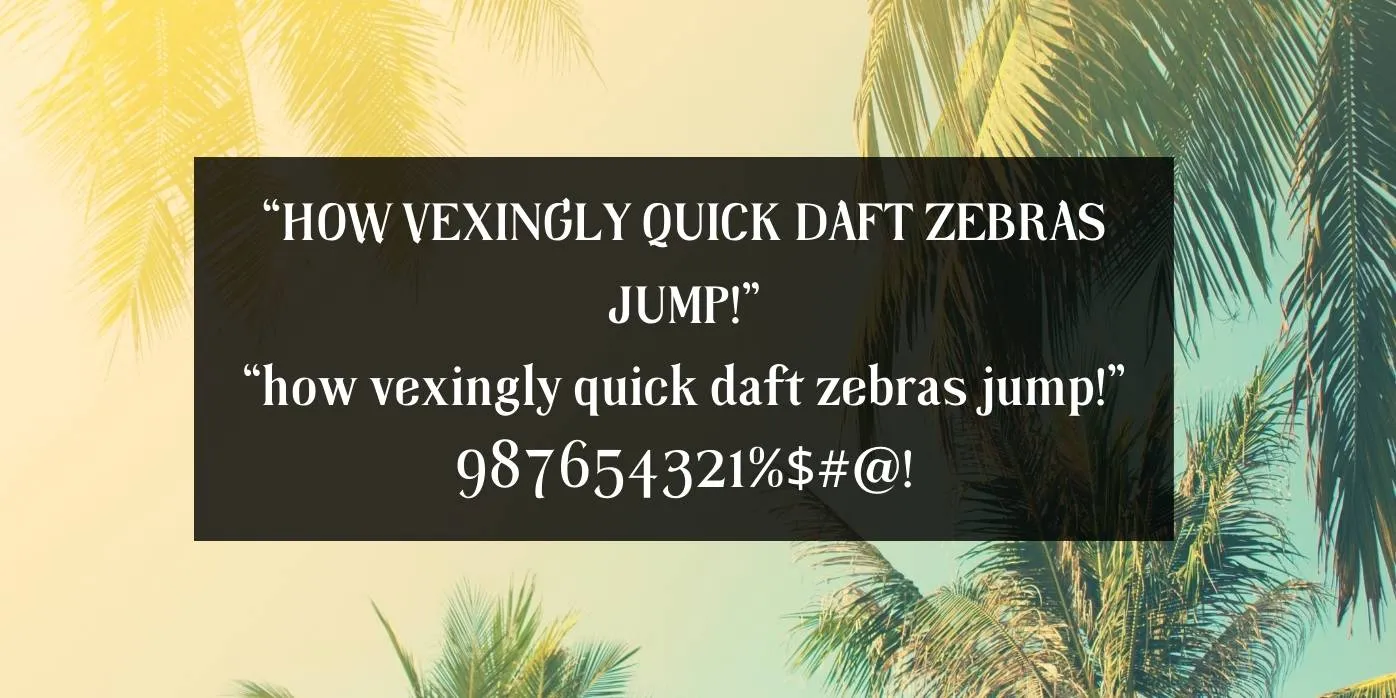
Tropikal Font
Tropikal Font is a serif font that was developed by Gabriel Reyes. The font was inspired by the work of early twentieth-century typeface designer Rudolph Koch. This stunning font has a wide range of weights and styles that make it perfect for both display and body text. The Tropikal Typeface is available in both regular and italic styles.
It is perfect for any project that requires a serif font. The wide range of weights and styles makes this font perfect for both display and body text. This marvelous font is available in different weights. You can also use albertus mt font which is closest to this font family.